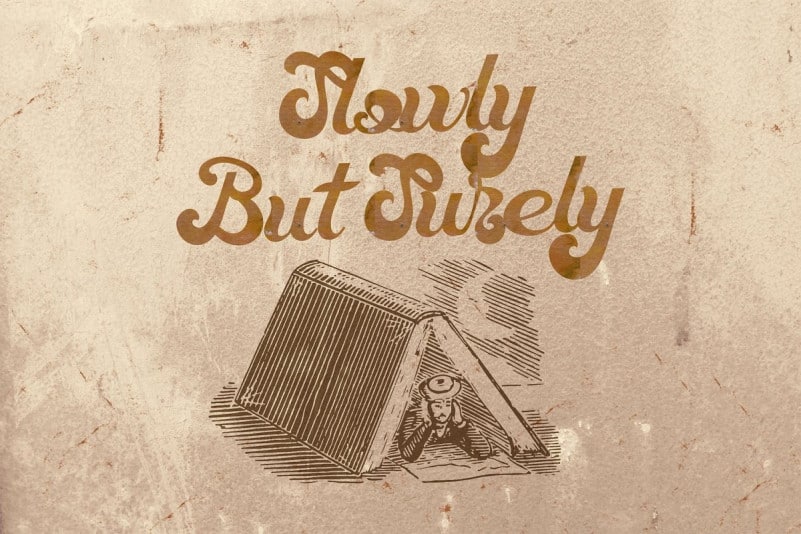
Magic Wand Script Font is a brush typeface with personality. You can use it as a logo, badge, insignia, packaging, headline, poster, t-shirt/apparel, greeting card, and wedding invitation. The flowing characters are ideal to make attractive messages. Made from font designer named StringLabs. It’s a bold script with groovy retro style. This font has a unique feel and you can use it to add that special retro touch to any design idea you can think of!